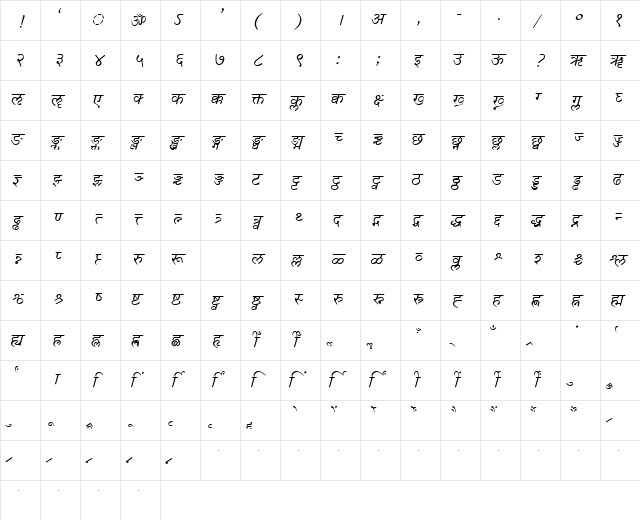
SD-TTSurekh Italic
Design Context for SD-TTSurekh Typeface
SD-TTSurekh offers clean, dependable letterforms without strong stylistic allegiance, making it a practical choice for designers who need flexibility. The slanted form adds forward momentum and visual energy.
Pro Tip: Try SD-TTSurekh for annotation and caption copy alongside an upright companion — the contrast in angle creates a dynamic but ordered typographic system.